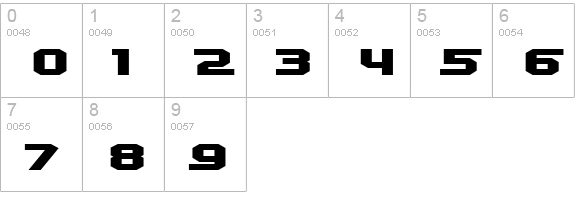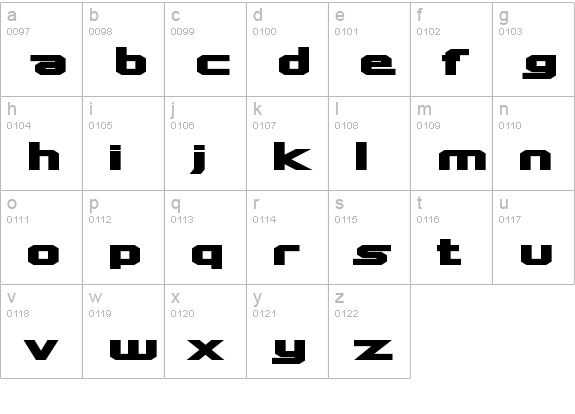
Quadrangle Font Details
Quadrangle Font is a stunning display font that exudes a sense of modern elegance and sophistication. Its clean lines and geometric shapes give it a contemporary feel, making it perfect for a wide range of design projects. From logos and branding to headlines and posters, Quadrangle font will effortlessly elevate your creations to new heights. What sets Quadrangle Font apart is not just its striking design, but also the fact that it is freely available to download at FontsMarket.com. This means that you can enjoy the beauty and versatility of this font without any cost or hassle. Whether you're a professional designer or a hobbyist, the accessibility of Quadrangle Font allows you to unleash your creativity without breaking the bank. With its wide range of weights and styles, Quadrangle Font offers endless possibilities for customization. Whether you prefer a bold and impactful look or a more subtle and refined aesthetic, this font has got you covered. Its versatility allows it to seamlessly adapt to any project, whether it's a sleek corporate website or a vibrant social media campaign. When it comes to legibility, Quadrangle Font excels. Its carefully crafted letterforms ensure that every character is easily distinguishable, making it a reliable choice for both print and digital mediums. Whether it's a small paragraph of text or a large headline, Quadrangle Font guarantees clear communication and effortless readability. In conclusion, Quadrangle Font is a must-have for any designer seeking a stylish and versatile display font. Its modern design, accessibility, and impeccable legibility make it a valuable addition to any font library. So why wait? Head over to FontsMarket.com and download Quadrangle Font for free today, and let your creativity soar to new heights.